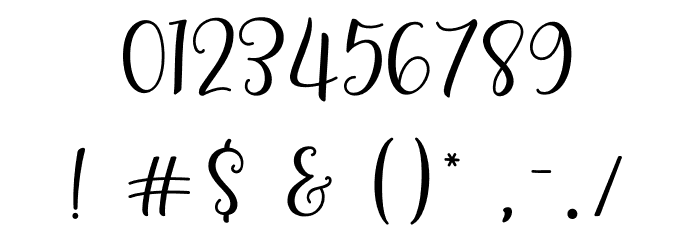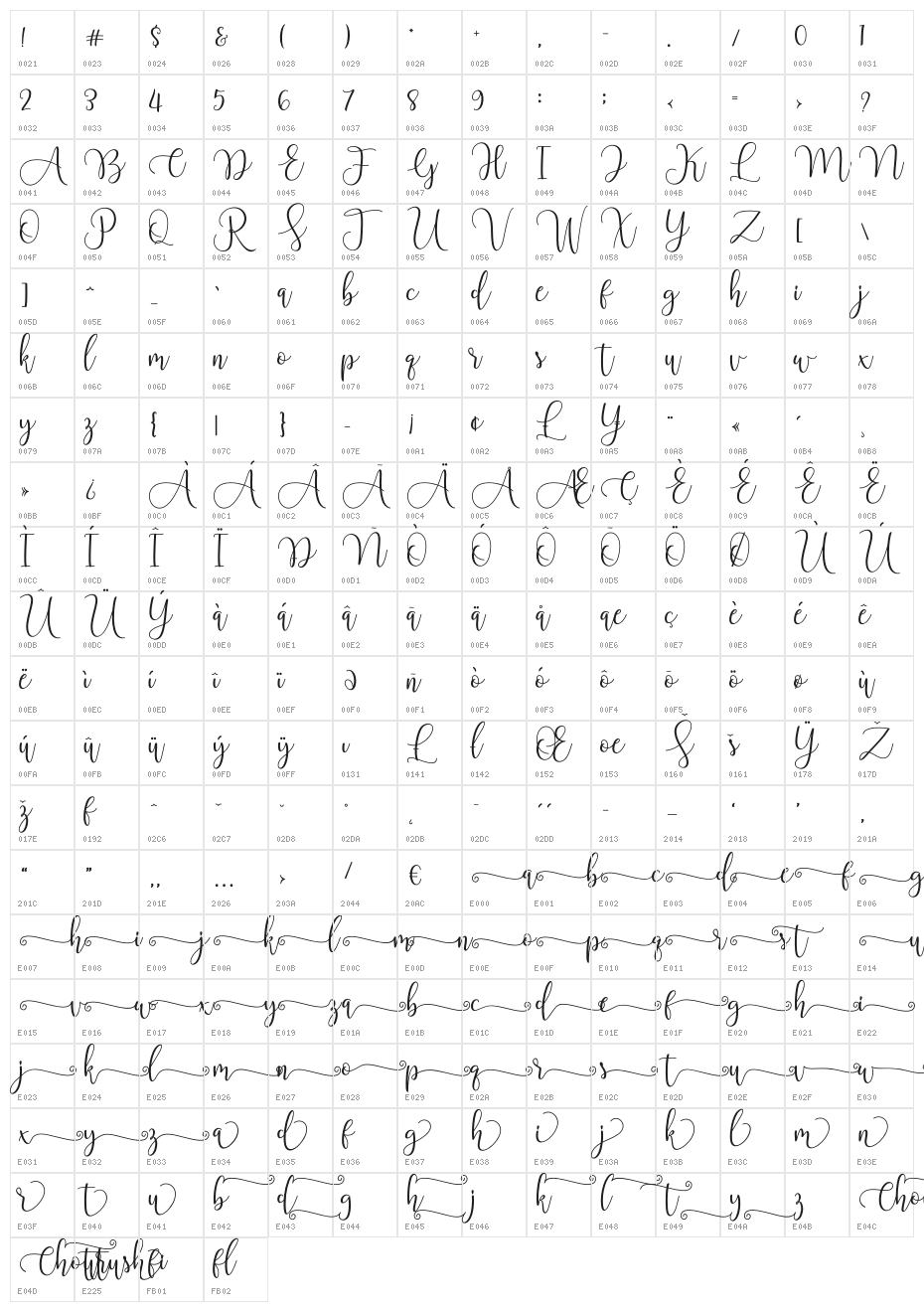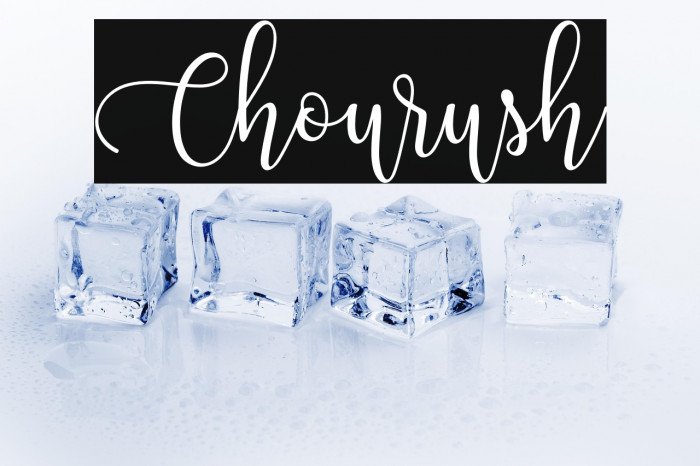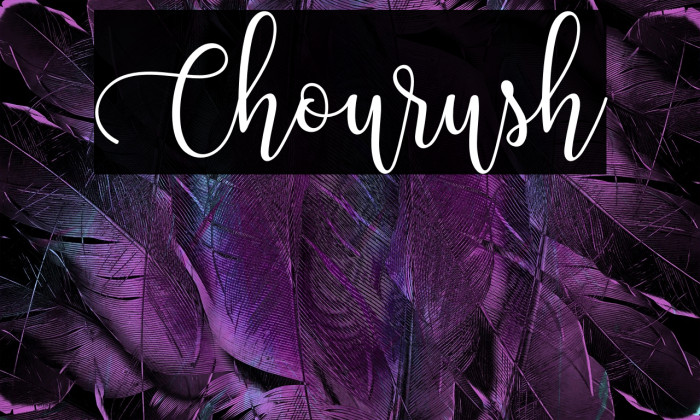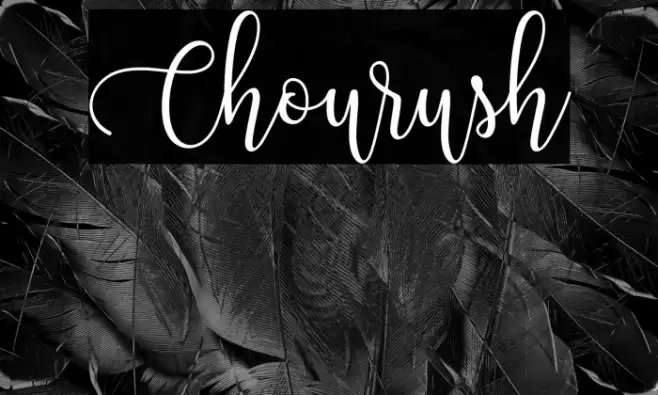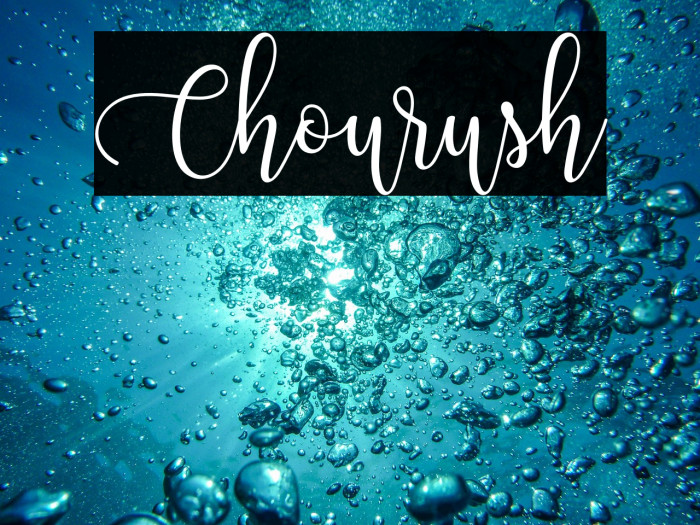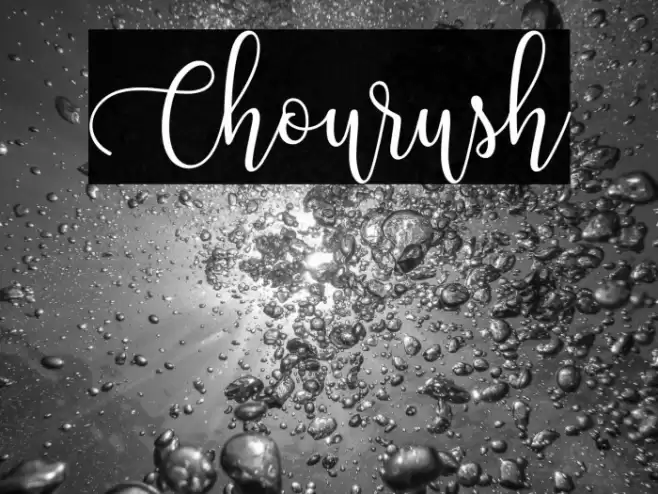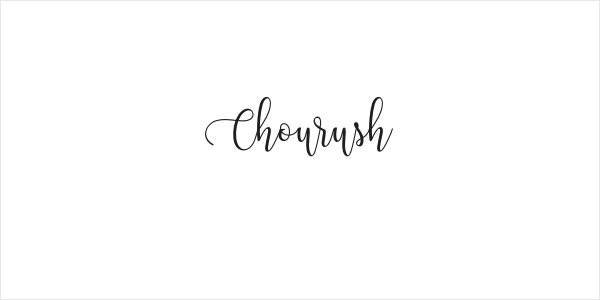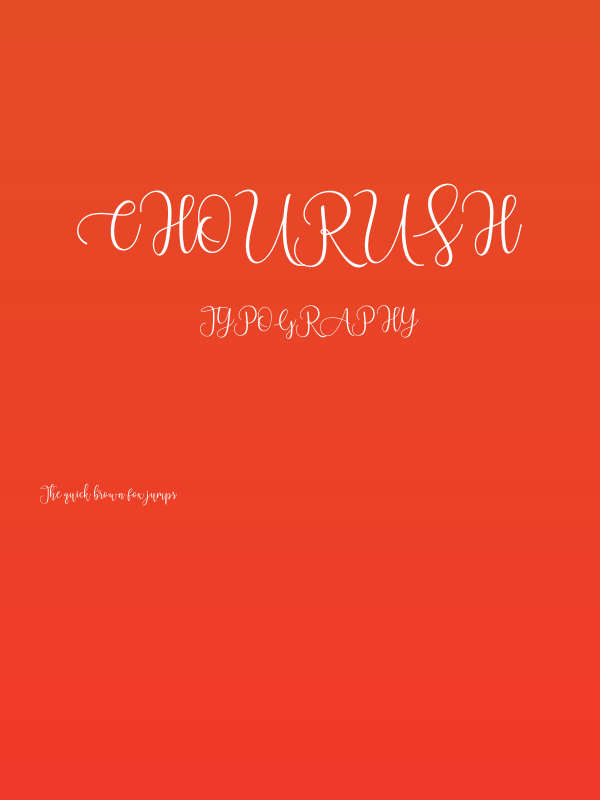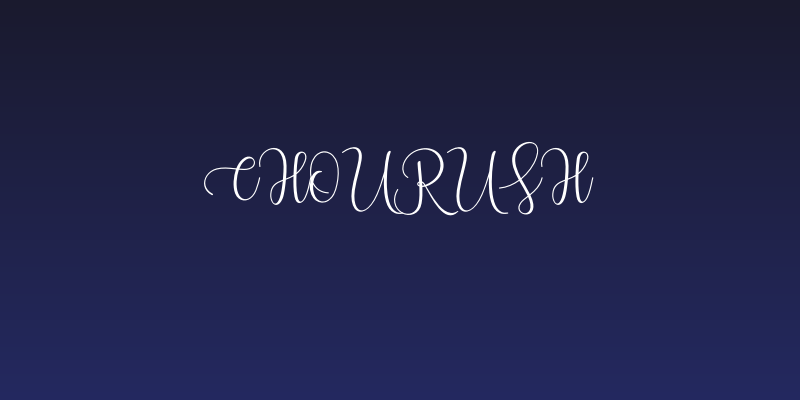
Chourush Font
Chourush Description
This elegant script font features a flowing, cursive style with delicate loops and swashes, giving it a sophisticated and artistic appearance. The uppercase letters are characterized by their tall, slender forms and intricate flourishes, while the lowercase letters maintain a more consistent baseline with gentle curves. The numerals are designed to complement the overall style, with a slightly whimsical touch. Special characters are thoughtfully integrated, maintaining the font's cohesive aesthetic. This font's graceful and fluid strokes make it ideal for projects that require a touch of elegance and creativity.
| Overall Style | Elegant, Artistic |
| Proposed Projects | Ideal for wedding invitations, greeting cards, branding, and elegant packaging designs. |